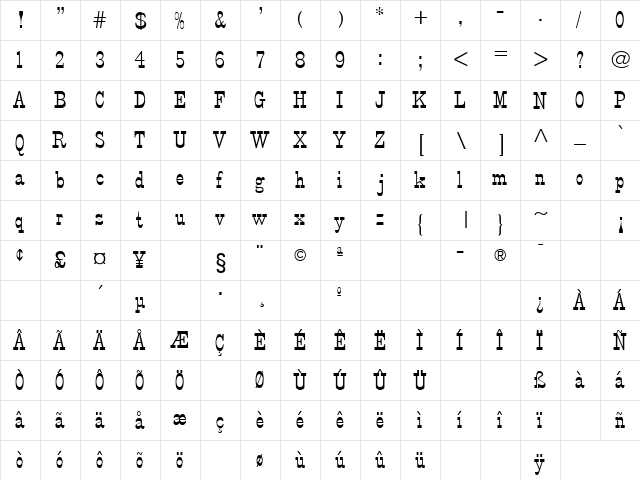
StageCoach Regular
StageCoach takes a measured approach to typography — its balanced proportions and neutral character make it a reliable workhorse for both digital and print work.